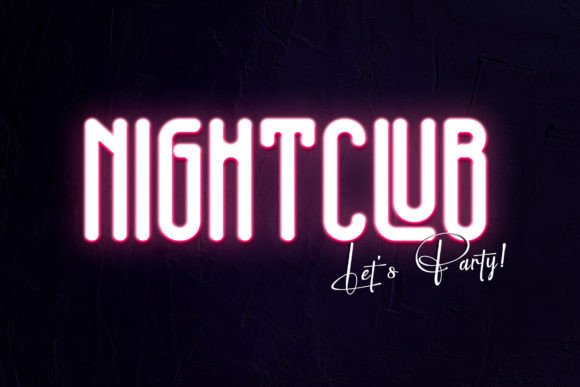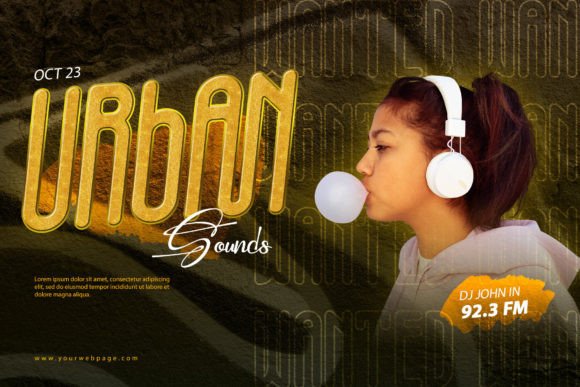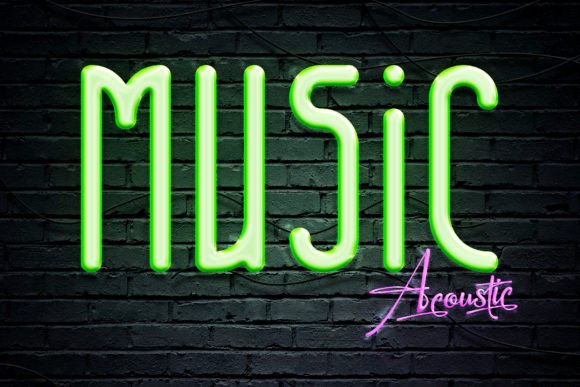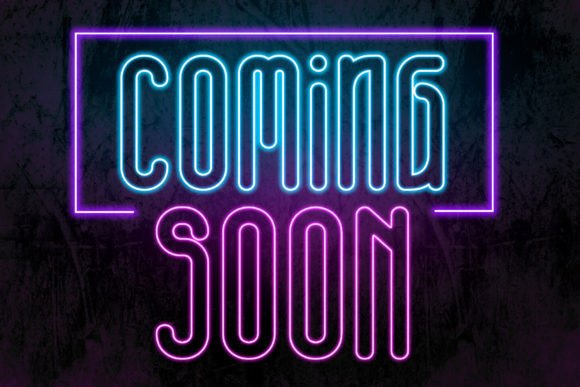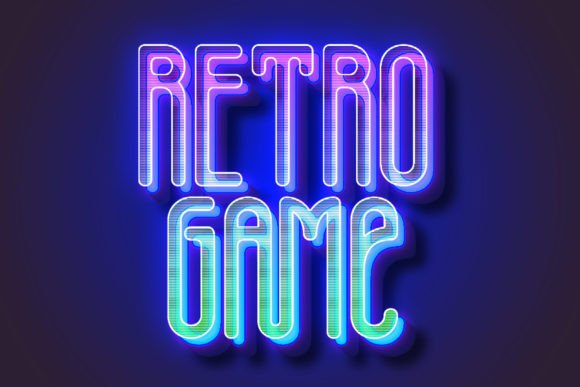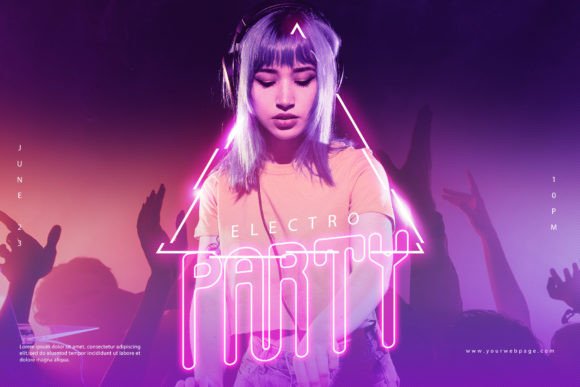
Introduction to Neonland Font
Immerse yourself in the vibrant world of Neonland, where every letter exudes the pulsating energy of neon lights.
This sans-serif font captivates with its sleek lines and futuristic appeal, perfect for bringing a modern twist to your projects Whether itโs signage, logos, branding, or digital designs, Neonland illuminates your creativity with its unmistakable neon charm.